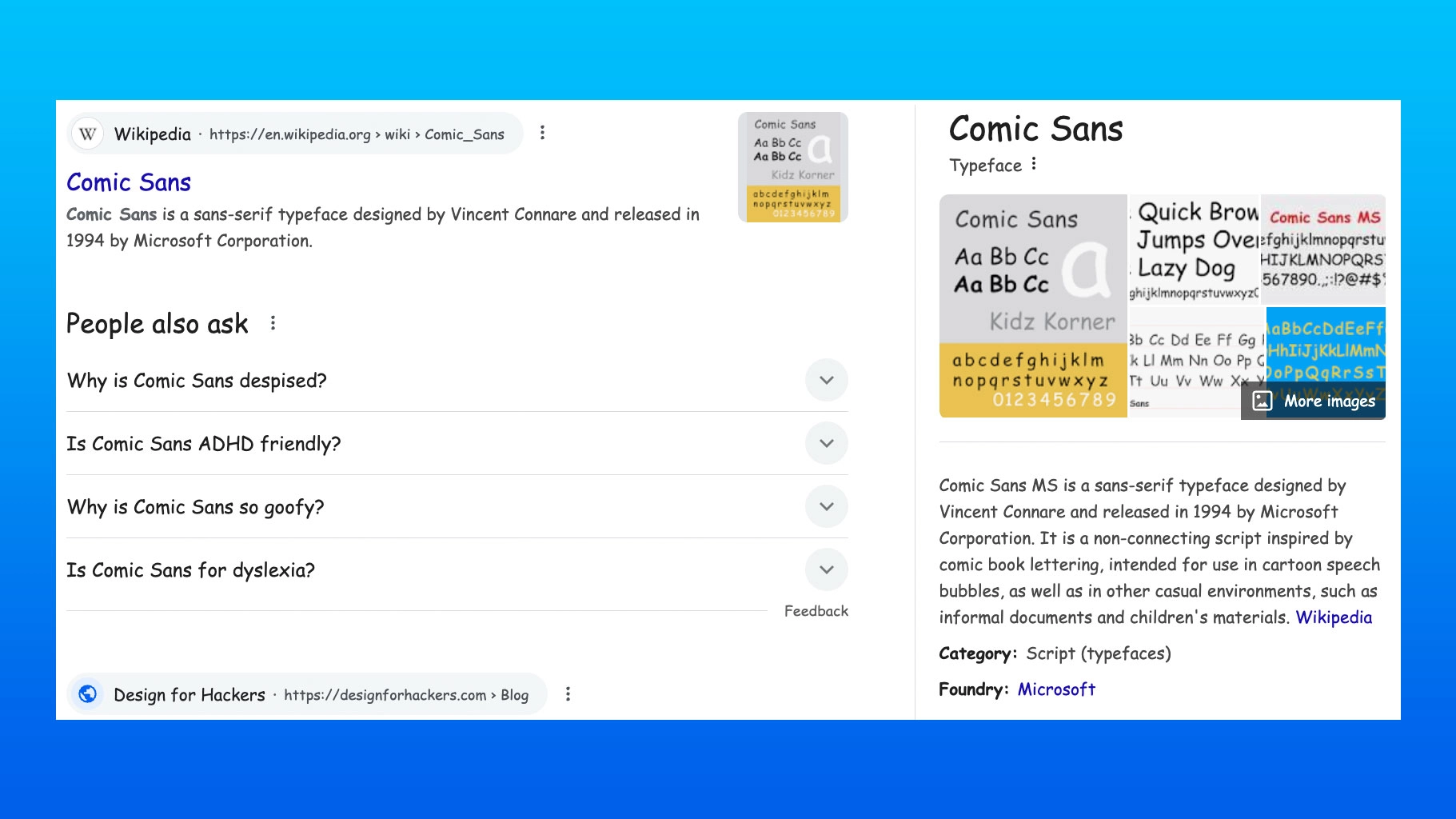
You must type Comic Sans into Google right now
This Google Easter Egg is the best I've seen.
I just discovered a new Google feature to be obsessed with. Typography nerds, get ready for your day to get one million times better. If you head to Google now and type in your favourite font, you'll get an awesome surprise – the whole page transforms into that font style. This is one of the best Google Easter Eggs I've seen.
I happened upon it by (somewhat embarrassingly, sorry Uber Serious Design Types) typing in 'comic sans' for an entirely unrelated reason and was tickled when the text changed before my eyes. Then a colleague tried it with other fonts including Garamond, Impact and Times New Roman. Sometimes you need to add 'font' to the name of the font for it to work (and many of the best free fonts are on the list). I've shared a couple of examples below, but don't want to spoil the surprise.
Comic Sans completely transforms the feel of the internet. How friendly it could be.